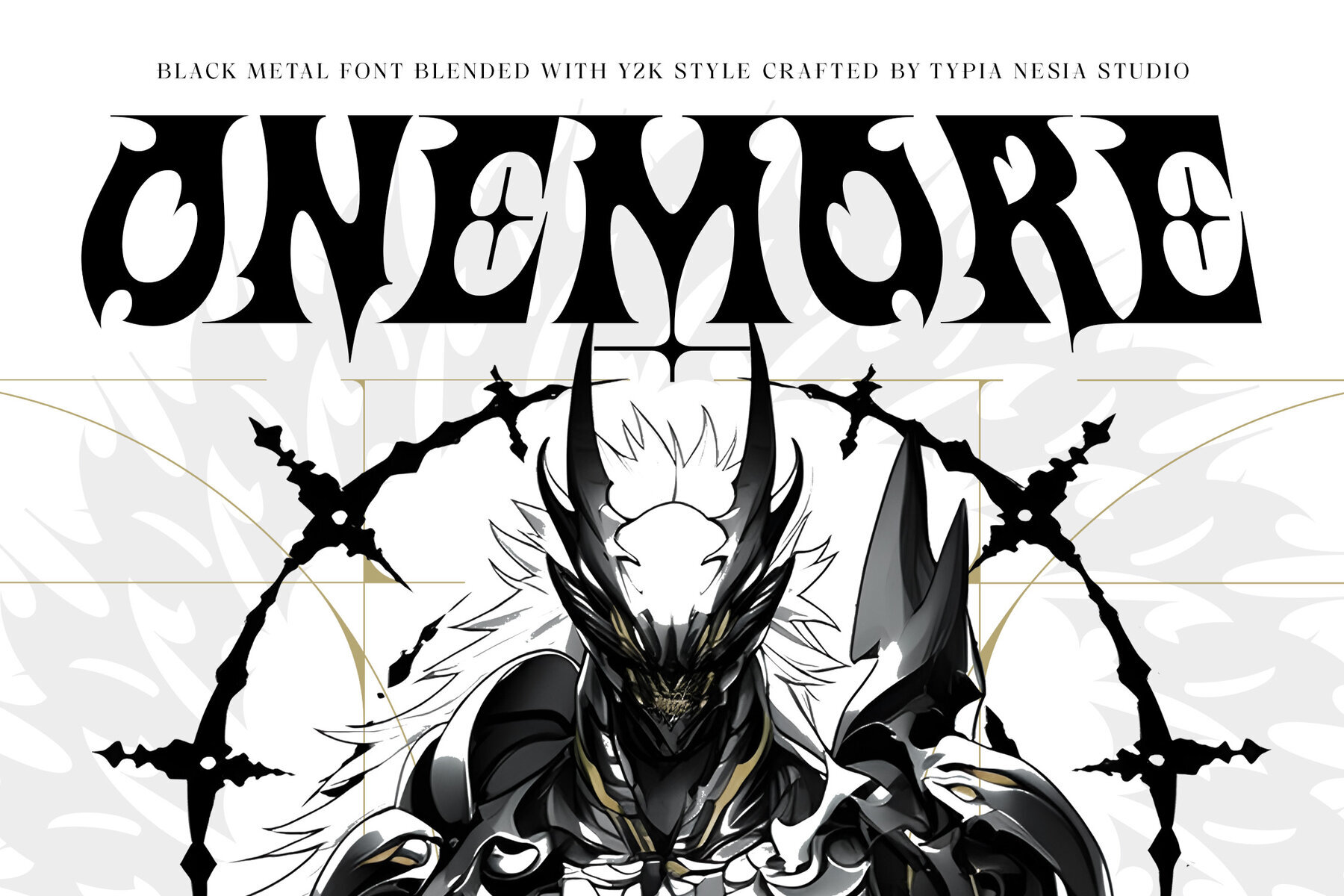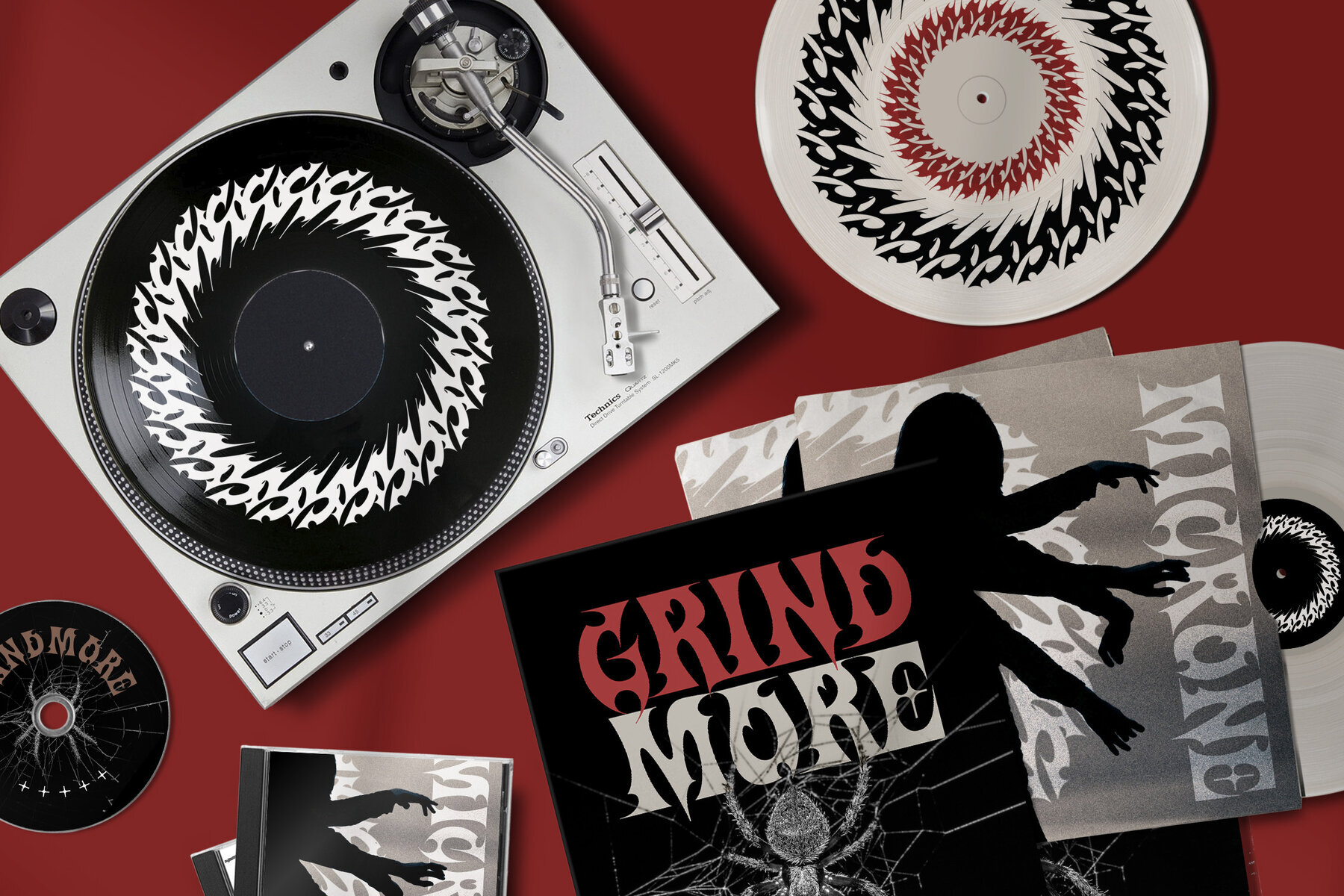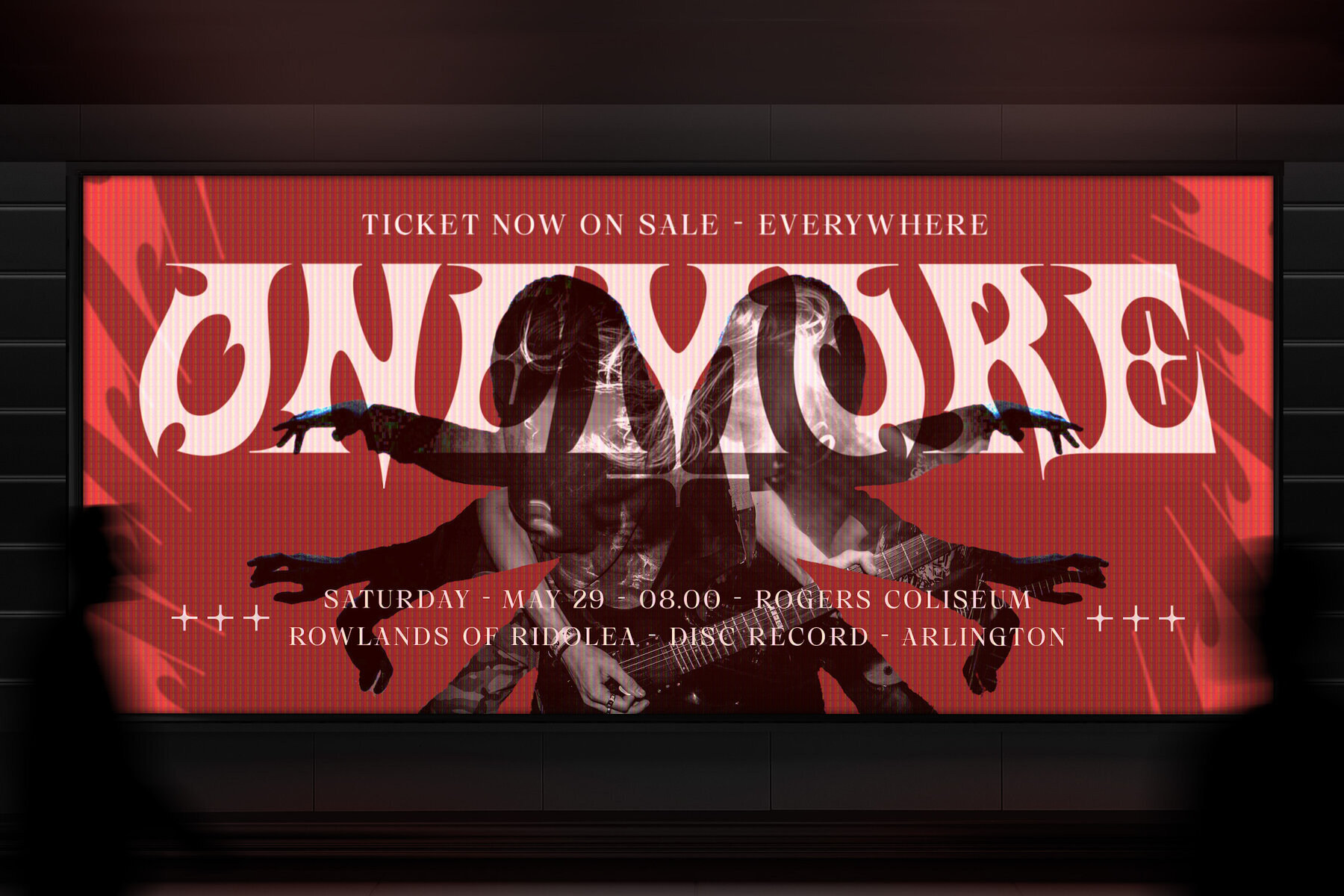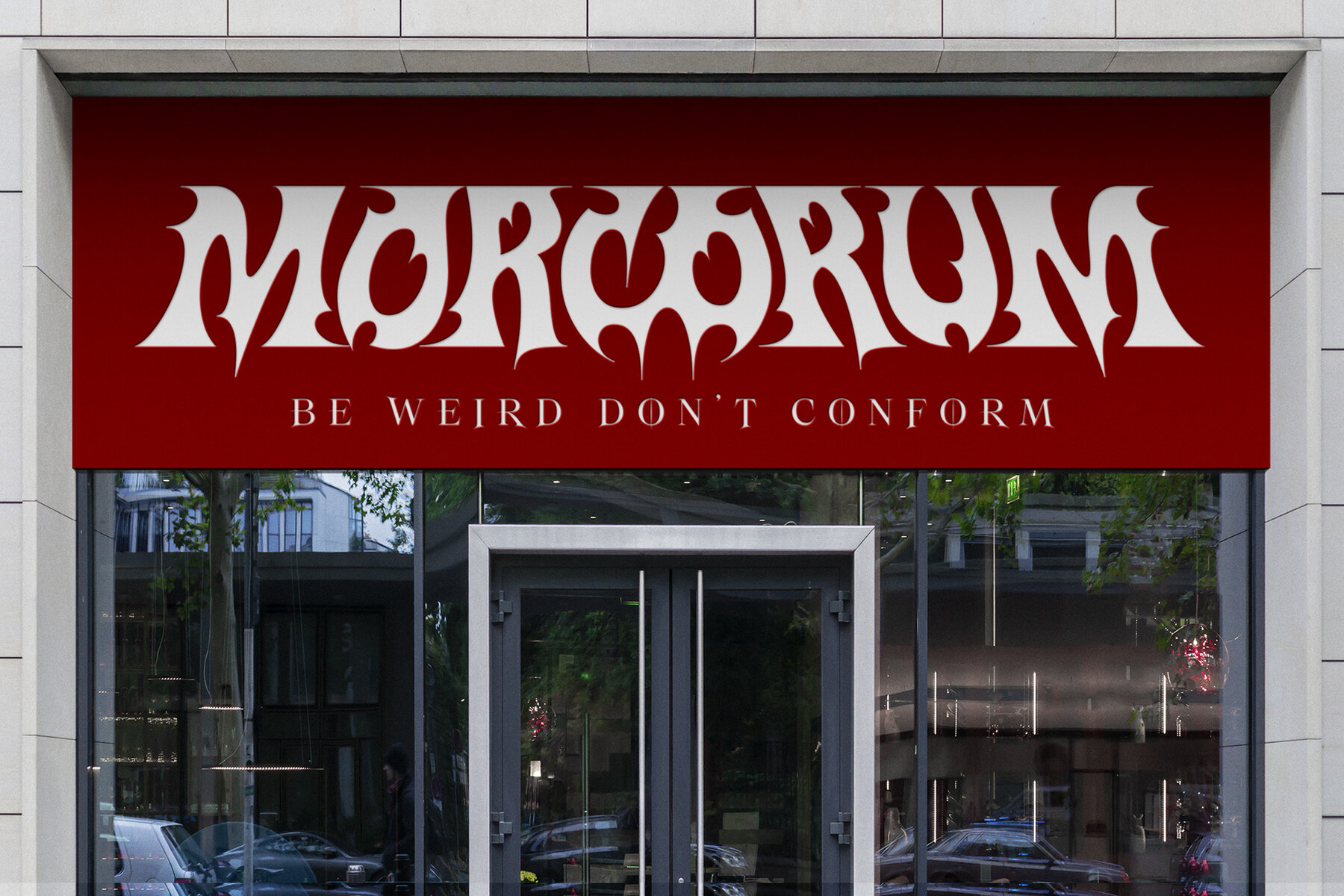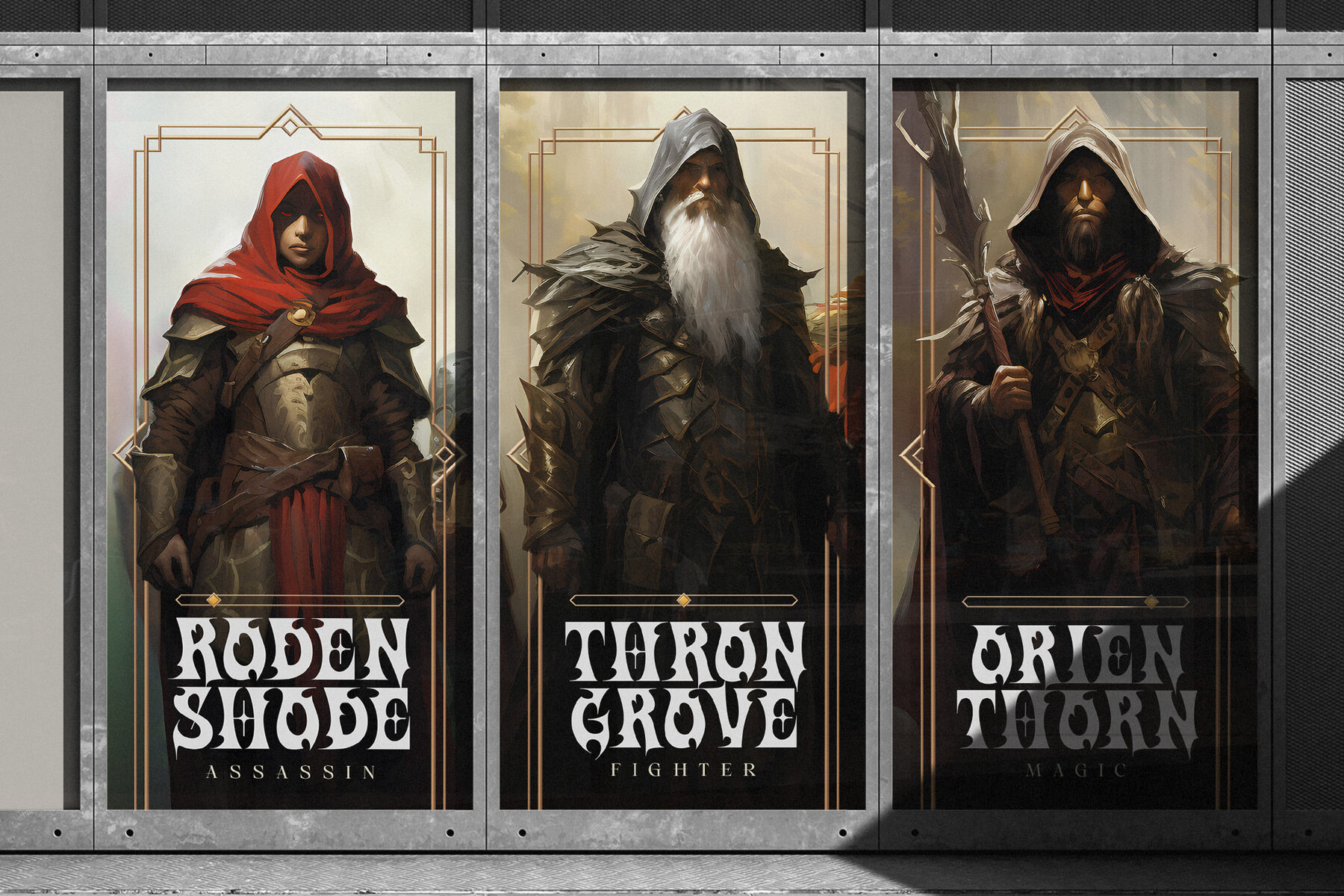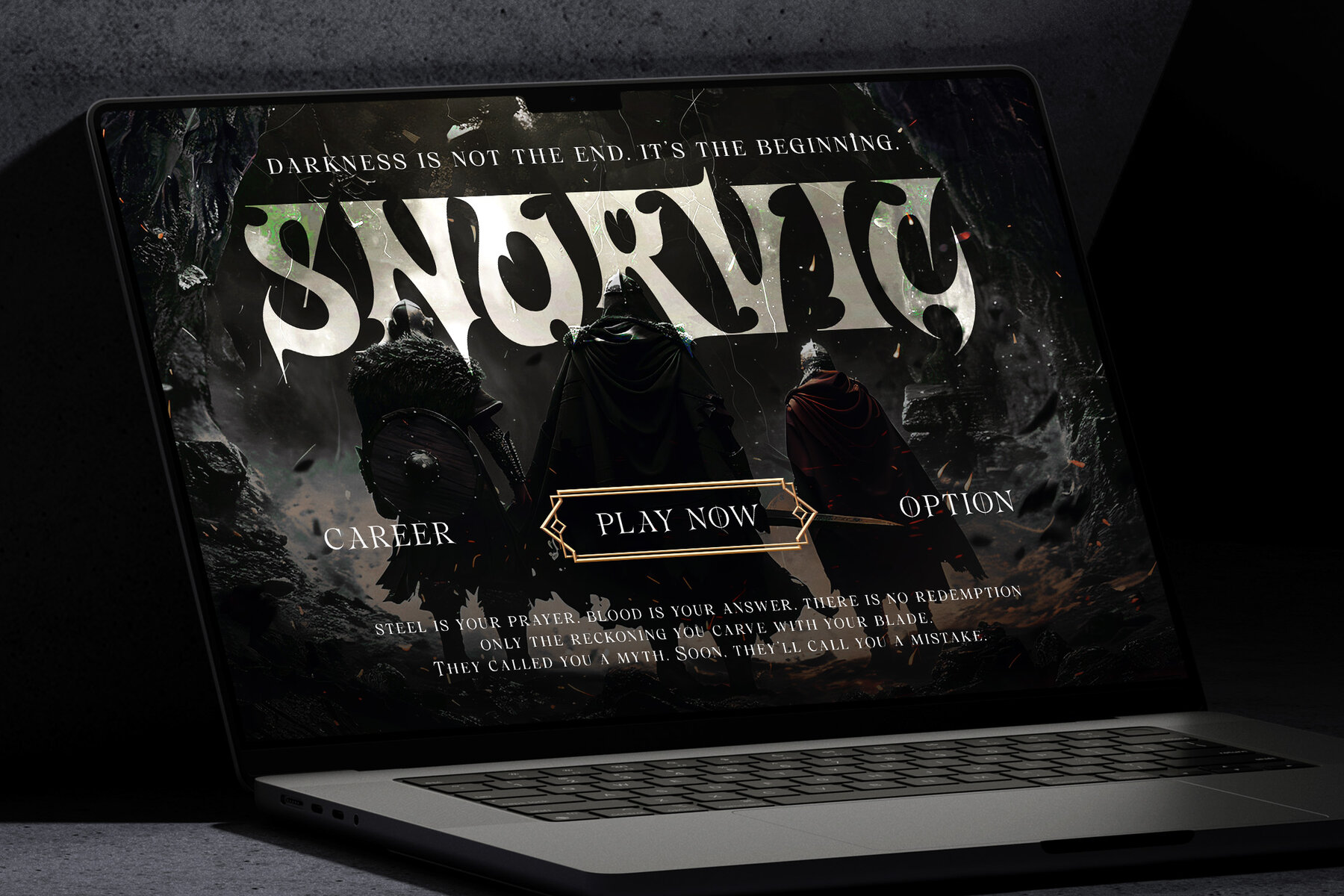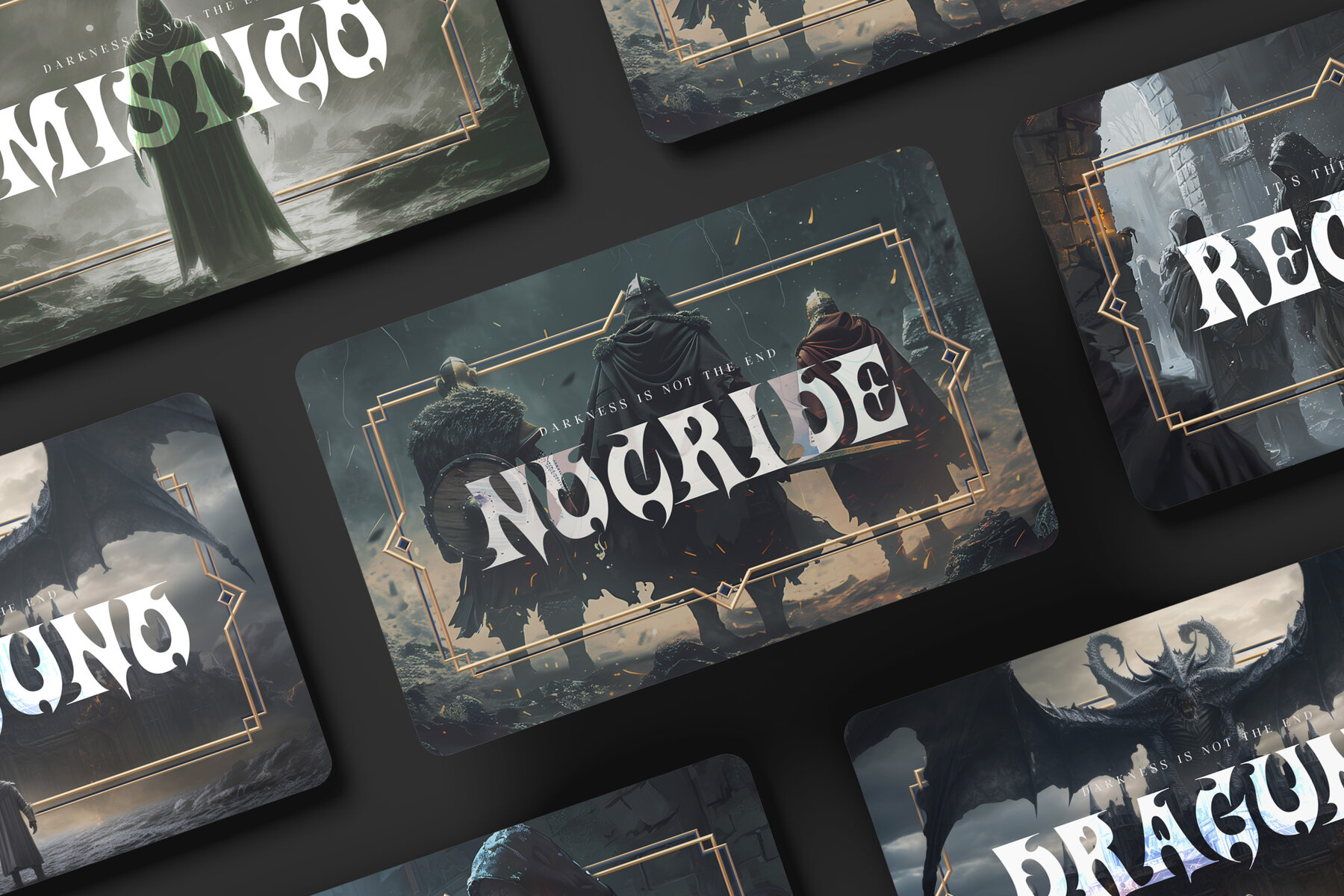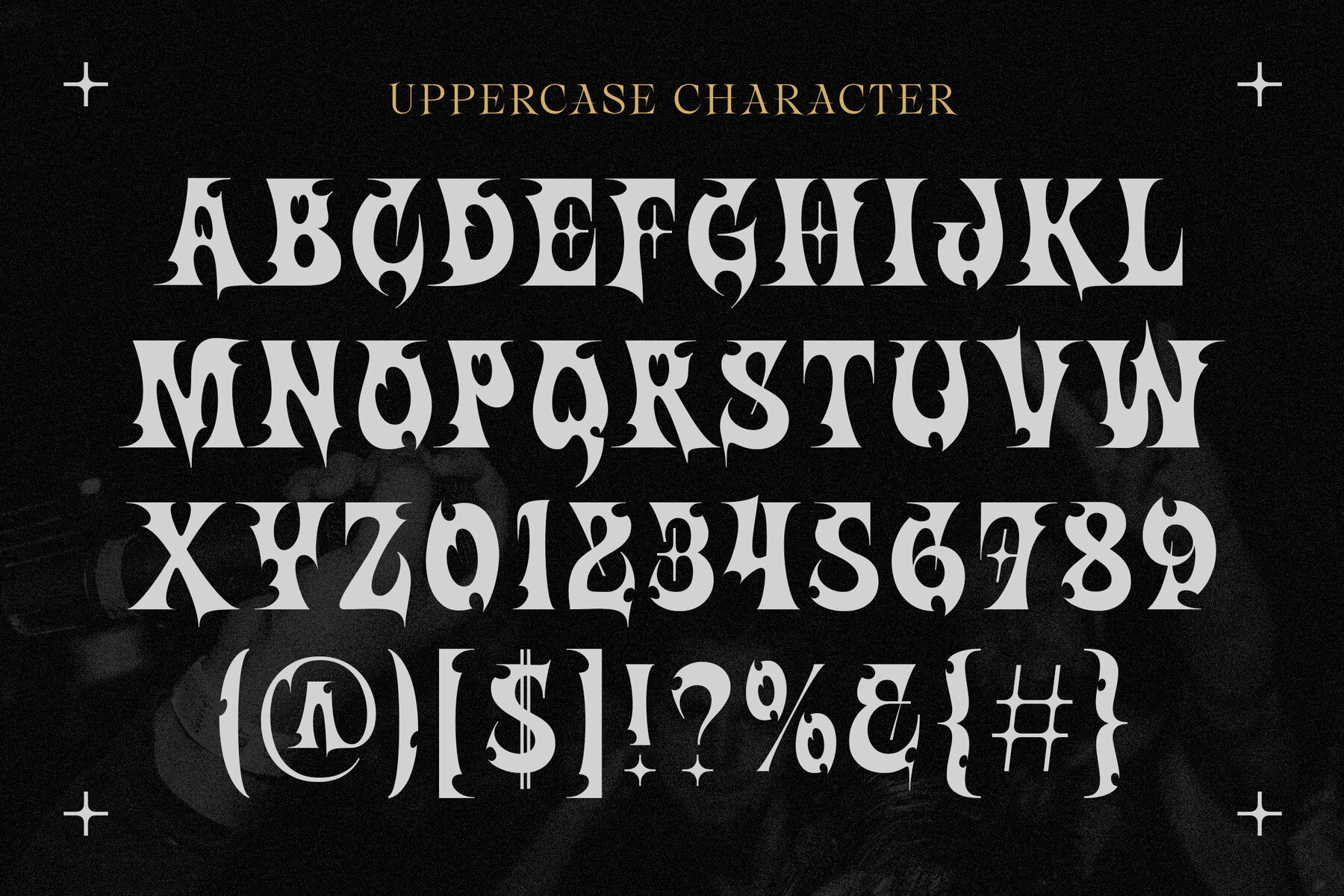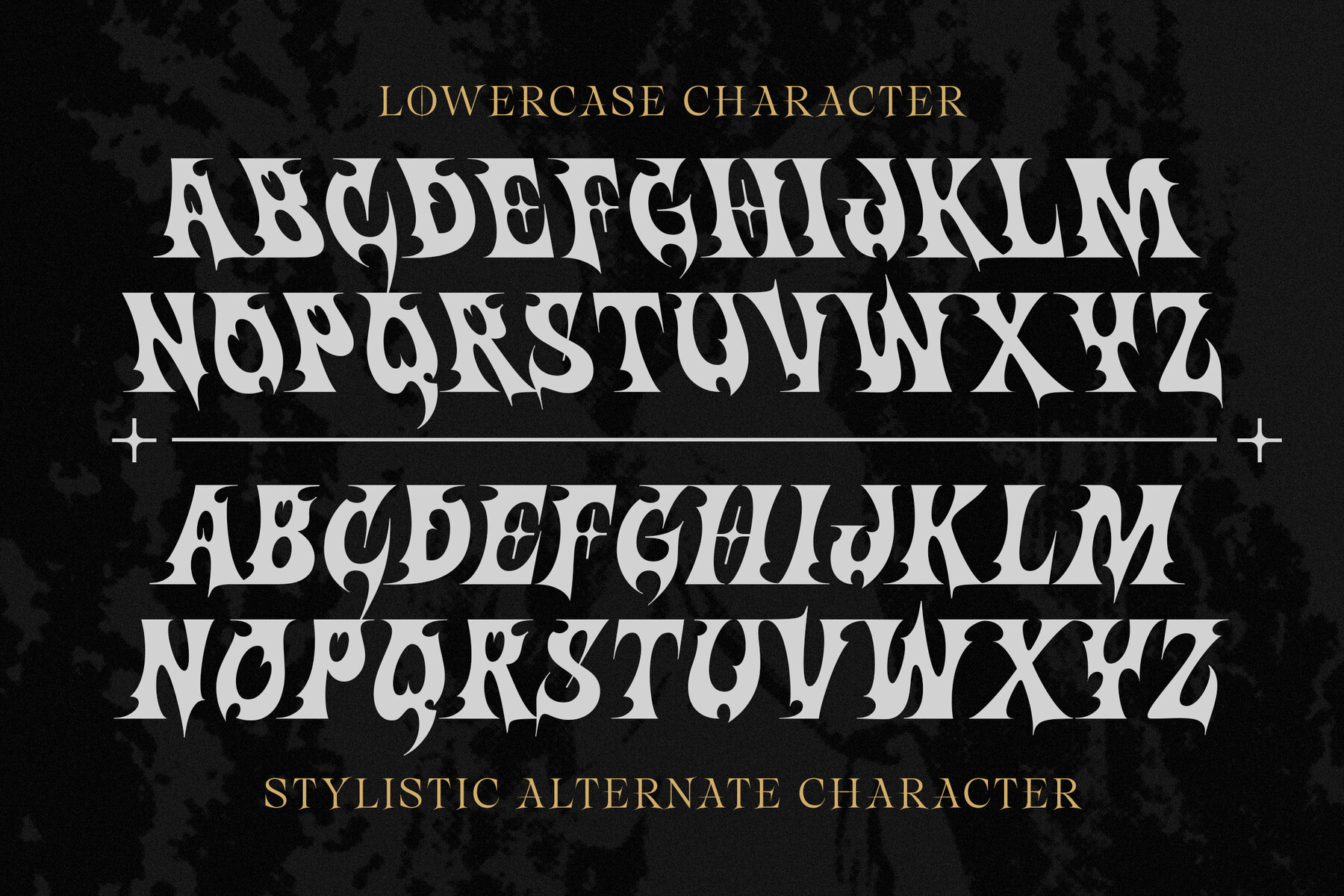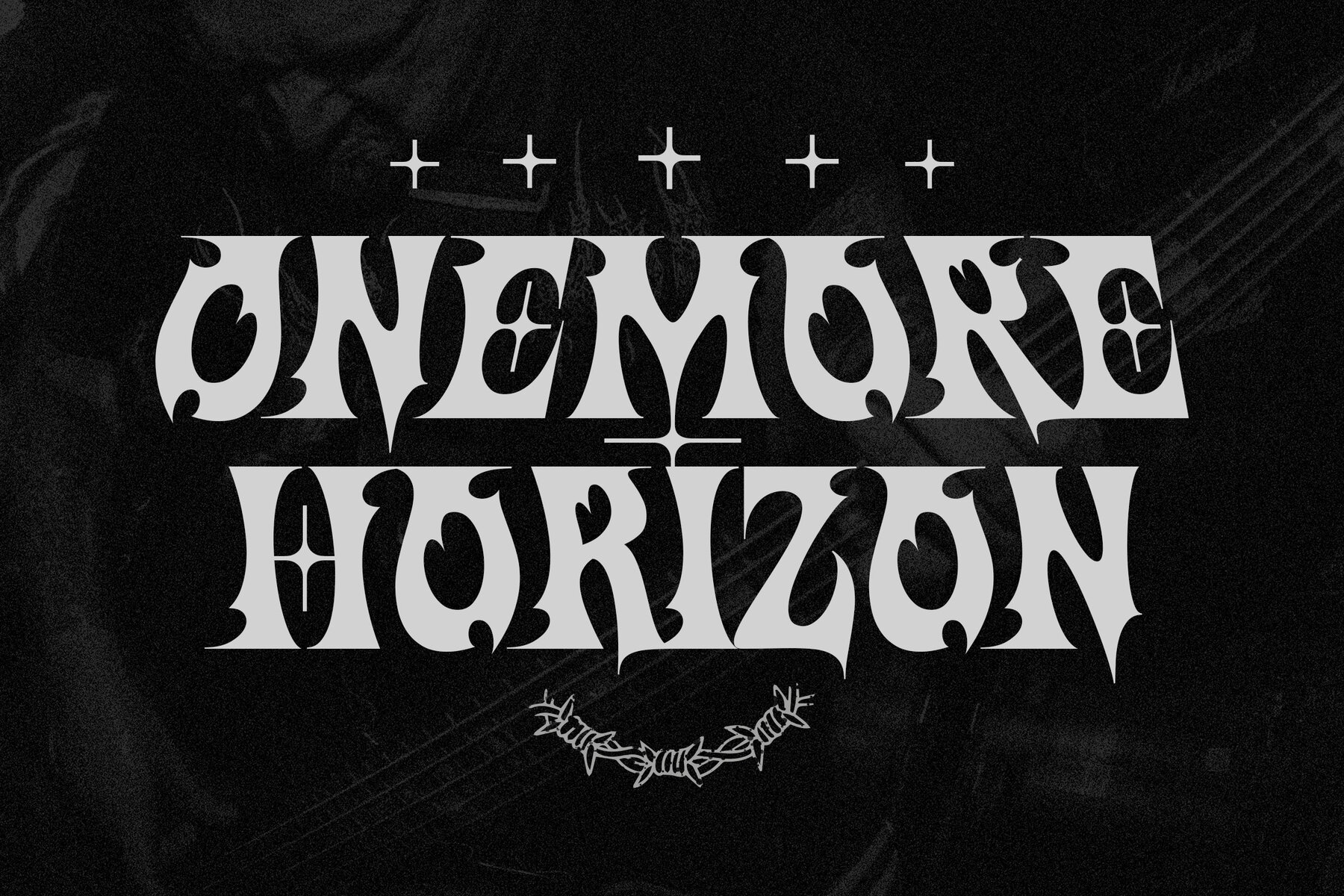
Onemore Font
Onemore Regular
Onemore blends the intensity of black metal with the nostalgia of Y2K, creating an edgy display font that commands attention. Its sharp details and bold forms are designed for a dark and powerful aesthetic, ideal for projects needing an aggressive and striking feel. Perfect for music album designs, particularly in the metal and rock genres, this font enhances concert posters, alternative product branding, and more. Elevate your design with Onemore's distinct style and ensure your projects leave a memorable impression.Onemore - A Black Metal Display Font with Y2K Edge